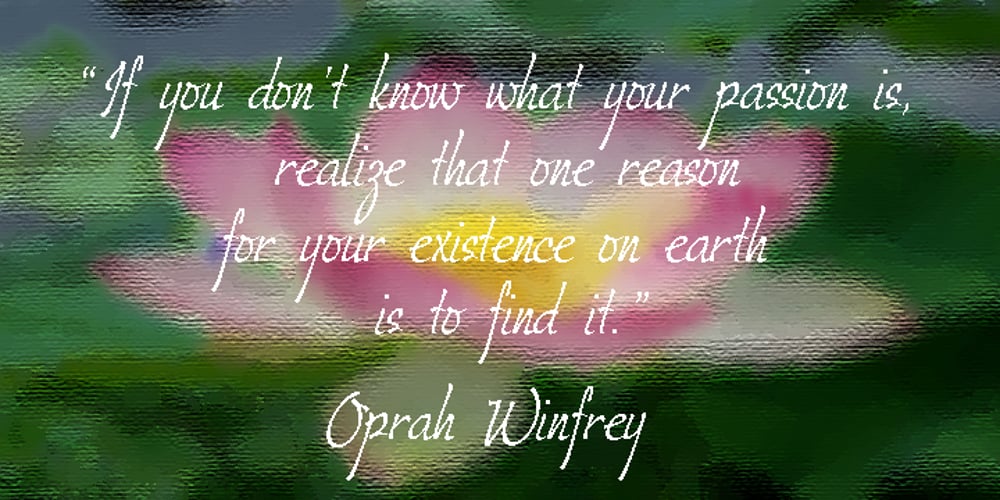
Laureen Font Family was designed by Azelea Rodgers and published by aRc. Laureen contains 1 styles and family package options. Laureen is a clean, smooth-edge, casual script with many potentials made possible by its 429 glyphs and great legibility. This TrueType font was manually kerned & edited for its semi-connected and informal look.